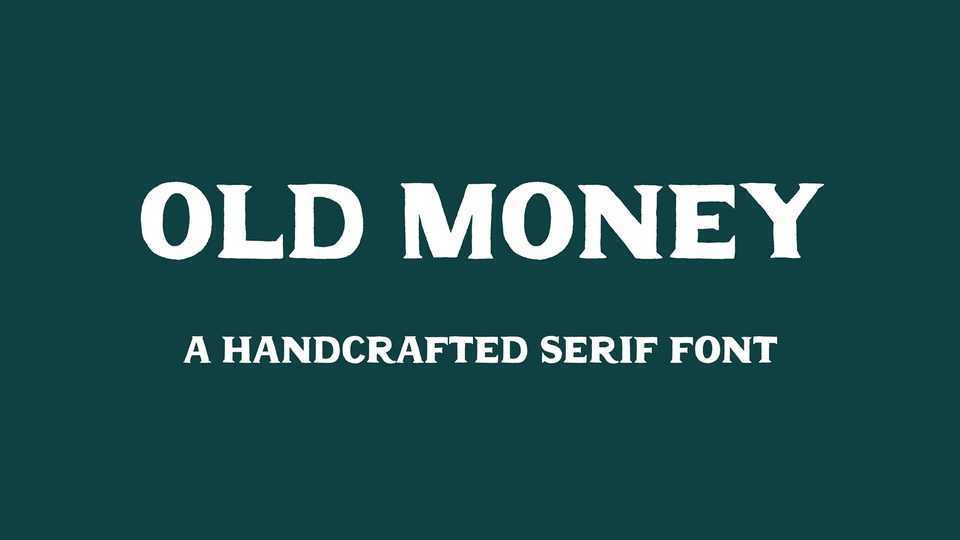
Download Old Money font, a handcrafted vintage serif typeface. Old Money is perfect for logos, badges, labels, t-shirt prints and other vintage inspired projects.
Designer: Charlie Robinson